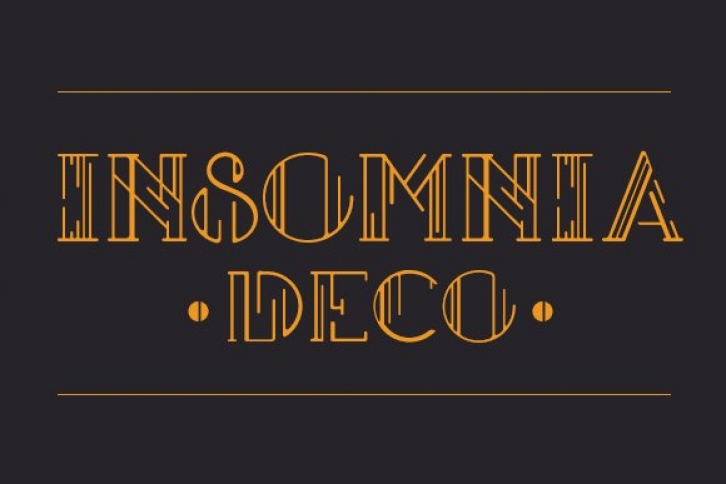
About a month ago, I woke up and couldn't go back to sleep. This happens too often actually. But as I sat in bed for an hour staring at the ceiling I kept thinking about this typeface.
I think the "S" came from bb8 on the new star wars movie trailer I have been obsessing over. You know that stuff always bleeds into your thinking. Somewhere around 3:30am I got out of bed and started drawing the face out. By 7am I had the whole set sketched out with some variations.
For the past month I’ve been working them out in sketch first and then tightening them up into a vector set. I worked throught he uppercase first and then got cracking on the lowercase and numerals. Again in sketch first then moved into vector. I like working this way since each character evolves andbecomes more interesting to me with each round of redraw. I find new things to accentuate or refine. The idea of negative space defining diagonals came out through this process for example.
One Insomnia riddled night turned into a Passion Project and now a typeface to downloadand use for any specific art deco display type need you might have for clients or for fun.